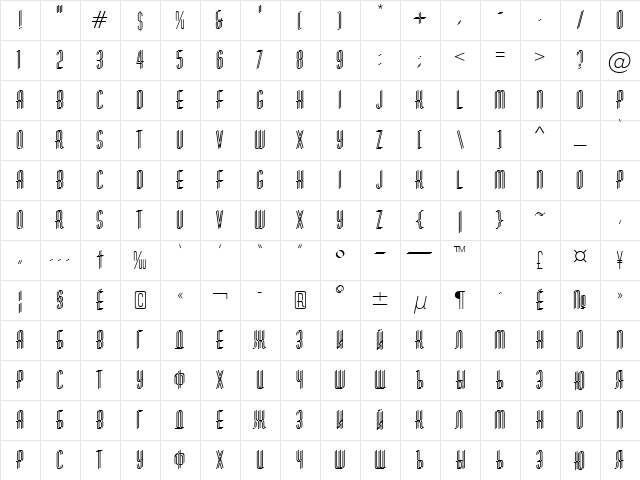
a_HuxleyDbl Regular
Design Context for a_HuxleyDbl Typeface
a_HuxleyDbl is a composed and adaptable typeface that performs quietly and consistently across a wide range of design contexts.